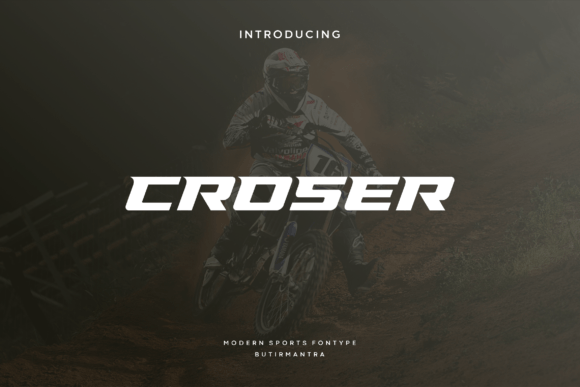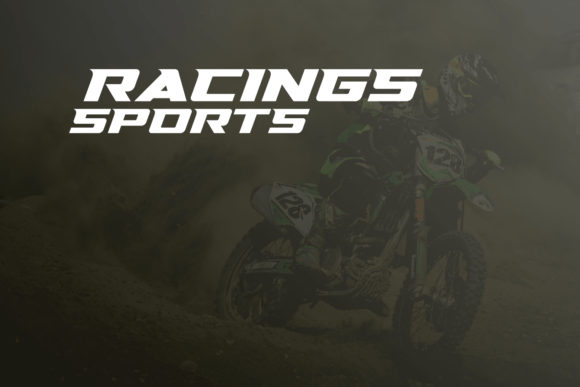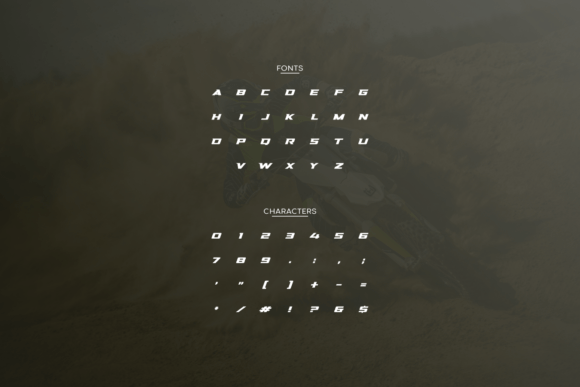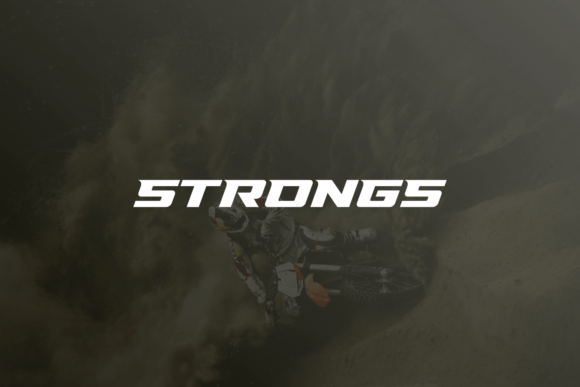
Croser Font: Dynamic Sports Font for Logos & Modern Design
About the Croser Font
Step up your design game with Croser Font, a font that exudes confidence and style. Croser is a cool sports display font with wide italics, modern cutouts, and a dynamic slant. Ideal for fast car racing sports titles, running matches, cycling, automotive game logos and monograms or other modern dynamic text.
Croser excels in large-scale applications such as headlines, posters, and logos where its bold, dynamic personality can make a statement. It’s perfect for branding associated with speed, energy, and competition—think sports teams, automotive companies, or gaming products. Avoid using Croser for body text or lengthy paragraphs; its stylistic elements are not optimized for readability at smaller sizes.
Pairing Croser effectively requires a complementary font to balance its strong presence. A clean sans-serif like Open Sans or a geometric sans-serif such as Futura would provide a sharp, modern counterpoint. For a more contrasting approach, consider a classic serif like Garamond for a sophisticated juxtaposition.
Croser’s overall personality is energetic and modern, with a touch of rebelliousness. Its aggressive slant and unique cutouts convey speed and a sense of cutting-edge design. This makes it unsuitable for projects requiring elegance or subtlety.